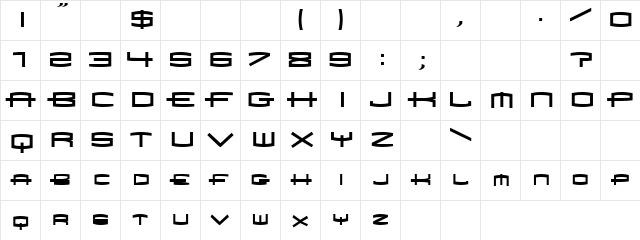
X979 Regular
Design Context for X979 Typeface
X979 is a composed and adaptable typeface that performs quietly and consistently across a wide range of design contexts.